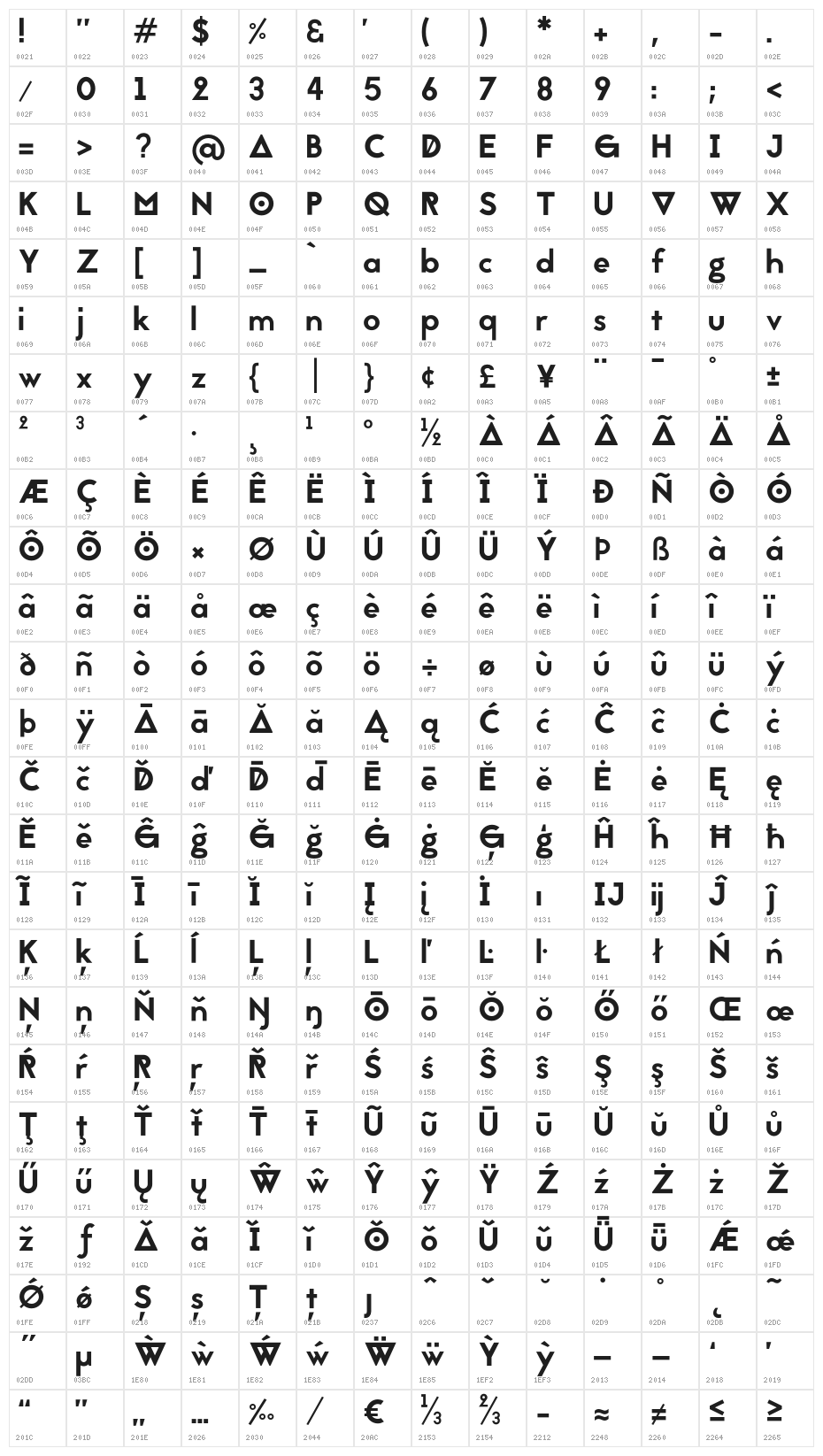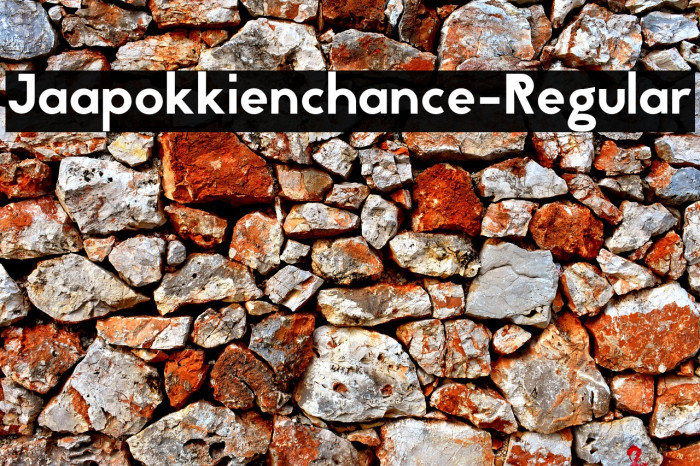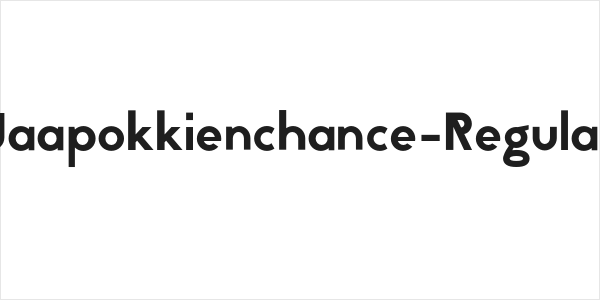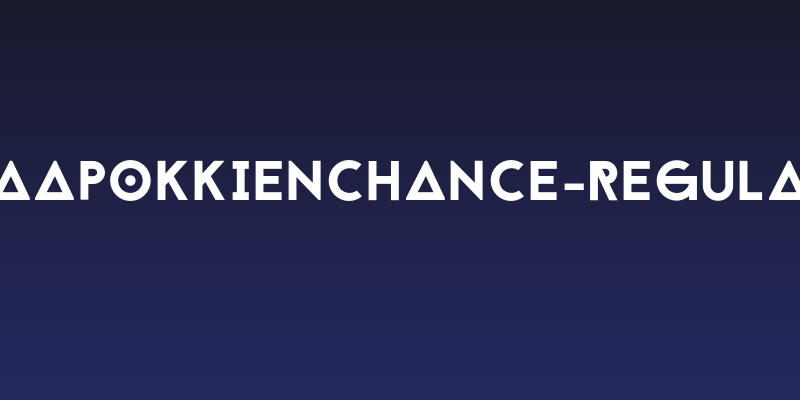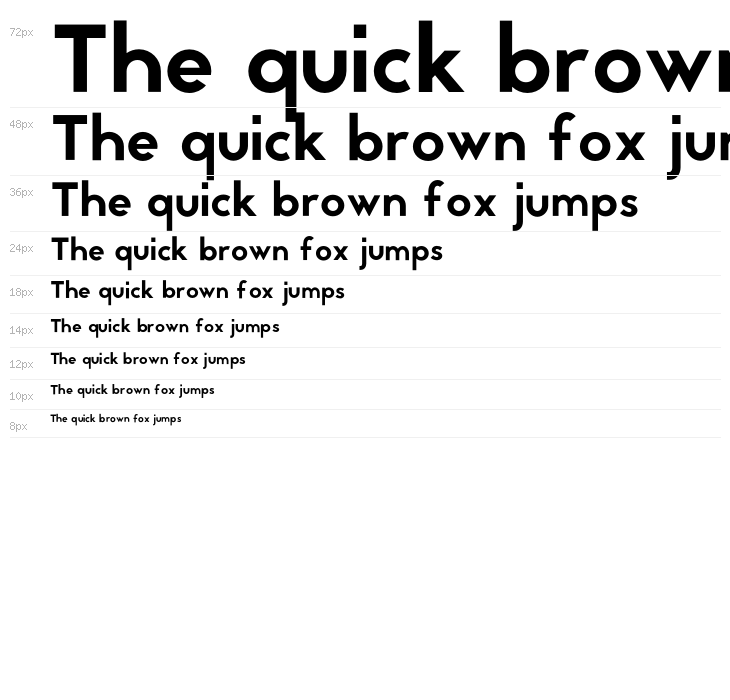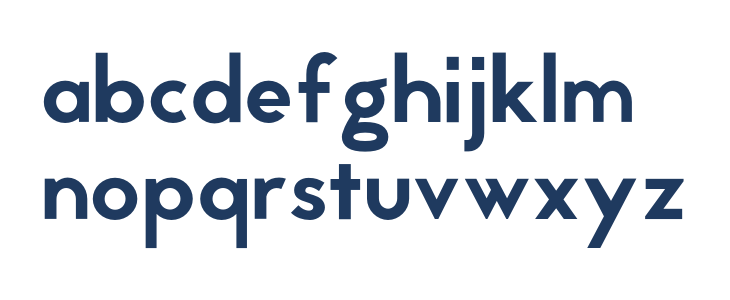
Jaapokkienchance-Regular Font
Jaapokkienchance-Regular Description
This font features a bold and geometric design, characterized by its strong, angular shapes and clean lines. The uppercase letters are particularly distinctive, with unique forms such as the triangular 'A' and the angular 'M'. The lowercase letters maintain a consistent style, offering a modern and cohesive look. The numerals are bold and clear, making them highly legible. Special characters are designed with the same geometric flair, adding to the font's overall modern aesthetic. The consistent stroke width throughout the characters gives it a uniform appearance, making it suitable for various design applications.
| Proposed Projects | Ideal for branding, posters, headlines, and modern design projects that require a bold statement. |